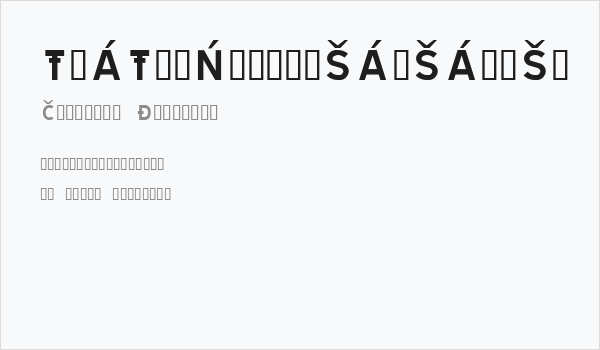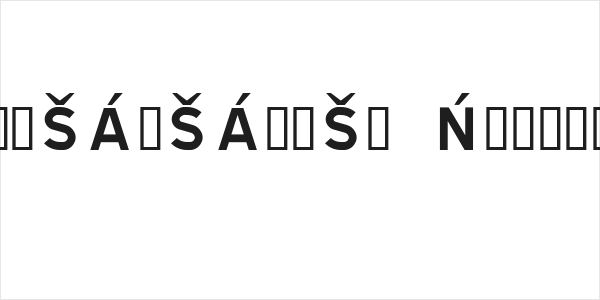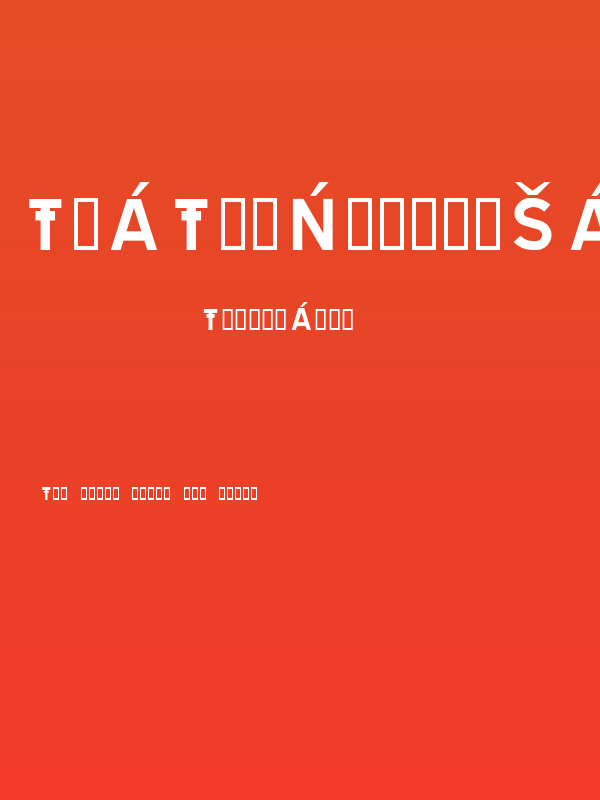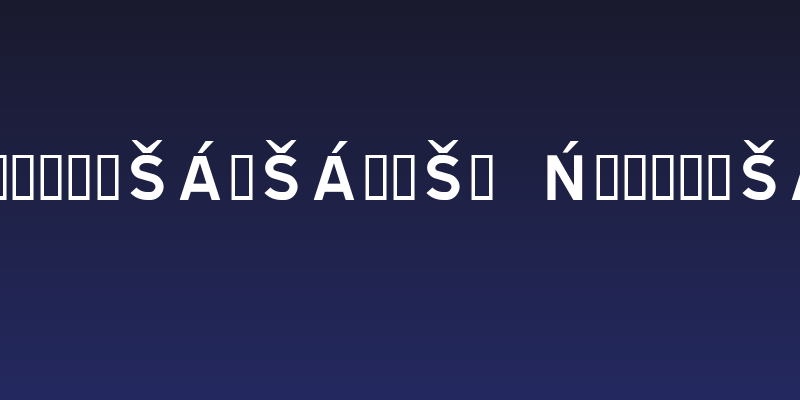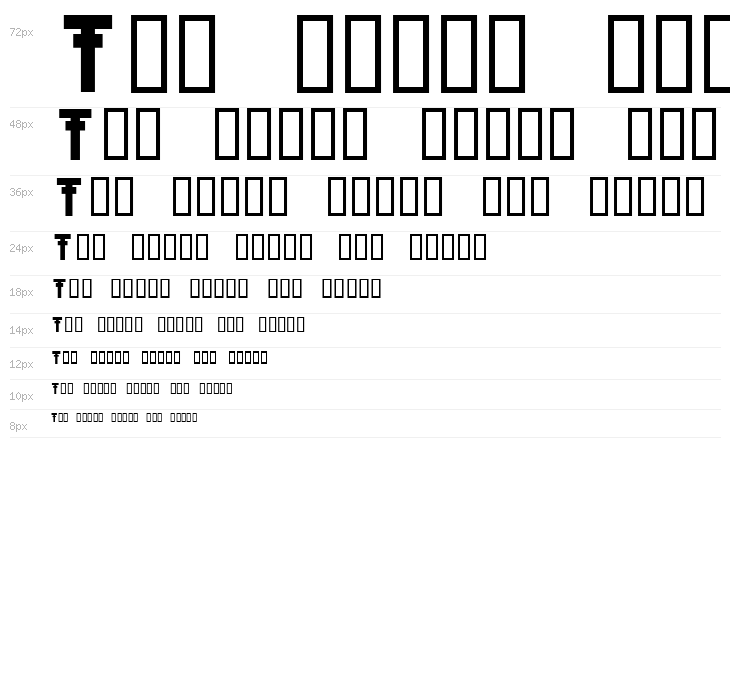
TRATEXNEGVERSALSAMISK Font
TRATEXNEGVERSALSAMISK Description
This font features a bold and modern design with clean lines and a strong presence. The characters are well-defined, with a consistent stroke width that gives it a uniform appearance. The uppercase letters have a commanding presence, while the lowercase letters maintain readability and balance. The numerals are clear and distinct, making them suitable for various applications. Special characters are included, adding versatility to the font's use. Overall, this typeface is ideal for projects that require a contemporary and impactful look.
| Use Case | Headlines, Logos, Advertising |
| Proposed Projects | Ideal for branding, advertising, headlines, and digital media projects. |